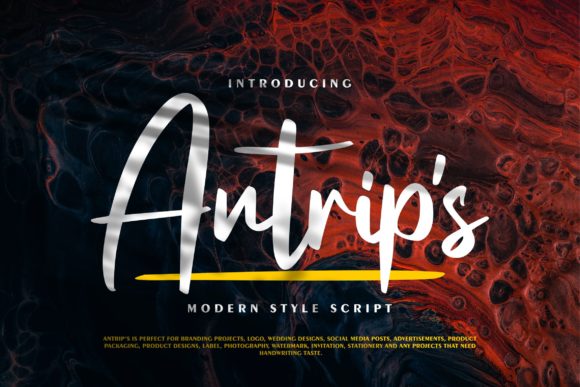
The Ultimate Guide to Antrip’s Font: A Fun and Versatile Handwritten Font
I’ll never forget the time I was working on a project for a client who wanted a fun and playful vibe. I had spent hours browsing through font libraries, but nothing seemed quite right. That was until I stumbled upon Antrip’s Font. It was love at first sight! ✨ In this article, I’ll share my experience with Antrip’s Font, its features, and how to make the most of it in your designs.
An Honest Review of Antrip’s Font
So, what makes Antrip’s Font so special? Here are a few things I love:
- ✅ Incredibly versatile: Antrip’s Font can be used for a wide range of projects, from invitations and greeting cards to social media graphics and posters.
- ✨ Fun and eye-catching: The handwritten style of Antrip’s Font is sure to grab attention and add a touch of personality to your designs.
- 🌈 Highly customizable: With OpenType features and glyphs, you can easily change the look and feel of the font to suit your project’s needs.
Of course, no font is perfect, and Antrip’s Font has a few small quirks:
- ⚠️ Limited use in formal or professional settings: While Antrip’s Font is amazing for creative projects, it may not be the best choice for more formal or professional designs.
- 🤔 Some letters may appear a bit inconsistent: As with any handwritten font, some letters may appear a bit inconsistent in terms of size or style.
The Story Behind Antrip’s Font
While the true story behind Antrip’s Font remains a mystery, it’s easy to imagine that it was created by a designer who loves playfulness and creativity. Perhaps the designer was inspired by the beauty of handwritten letters and the joy of creating something new and unique. Whatever the story, Antrip’s Font is sure to bring a touch of magic to your designs.
| What is Antrip’s Font? | Antrip’s Font is a fun and eye-catching handwritten font perfect for creative projects and designs. |